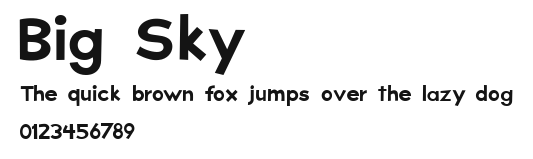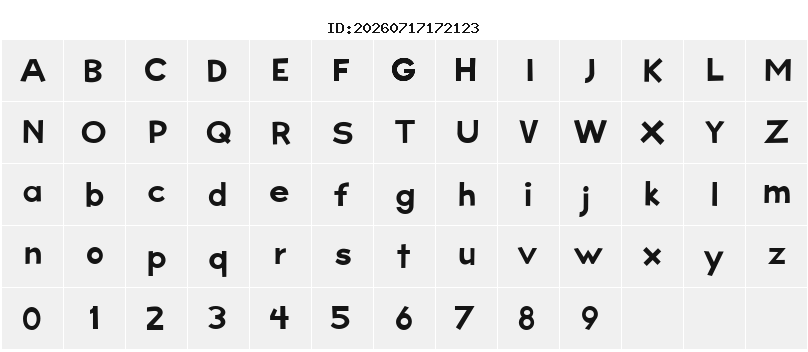
• Font Name: Big Sky
• Full Font Name: Big Sky
• Designer: Kristian Larsen
• Manufacturer: Kristian Larsen
About Big Sky.ttf
Big Sky.ttf is a modern, elegant sans-serif font designed for ultimate readability and visual harmony. Perfect for branding, headlines, web design, and print materials.